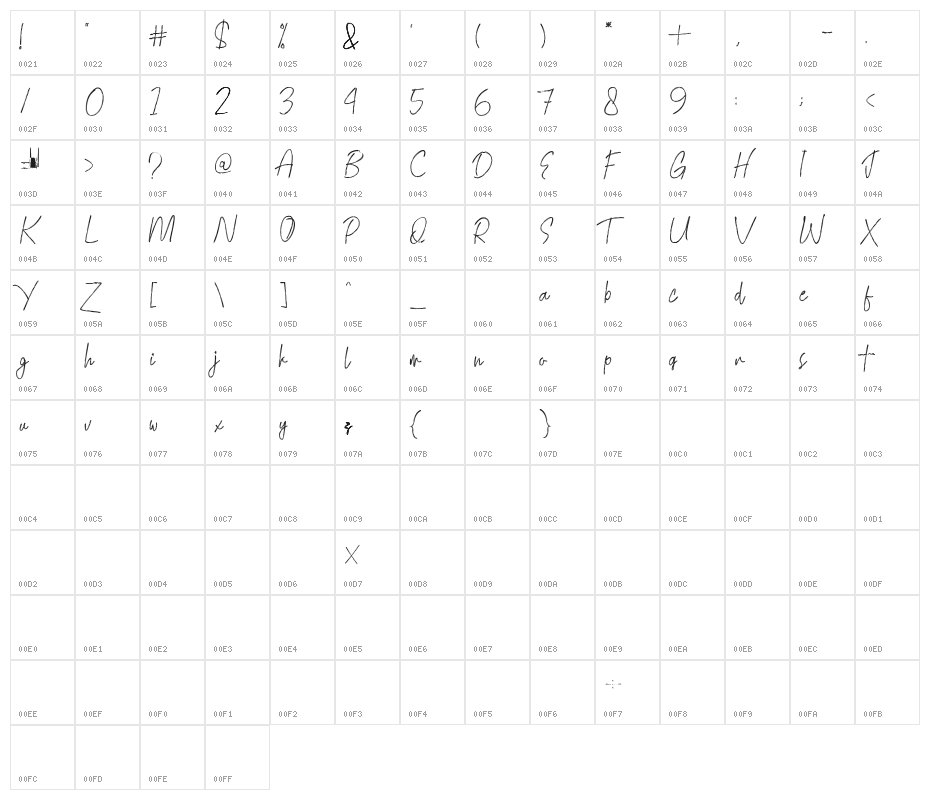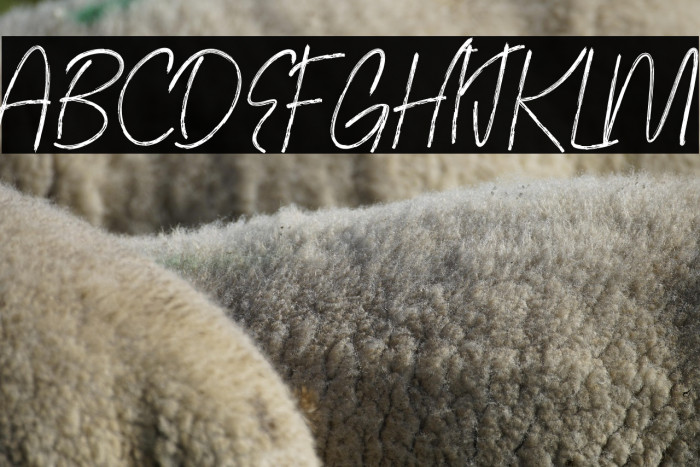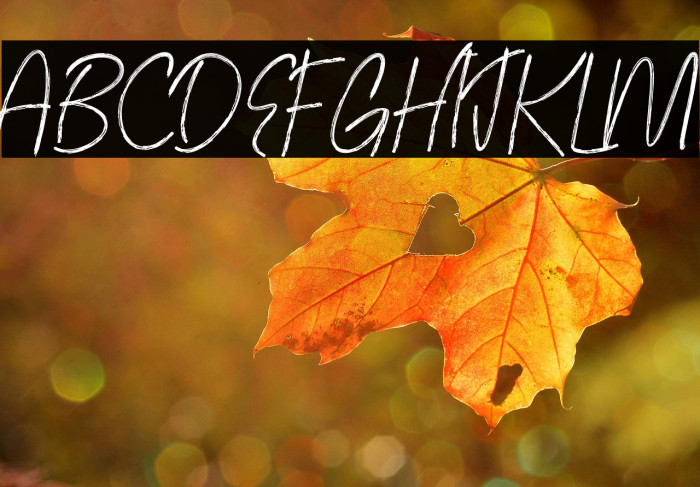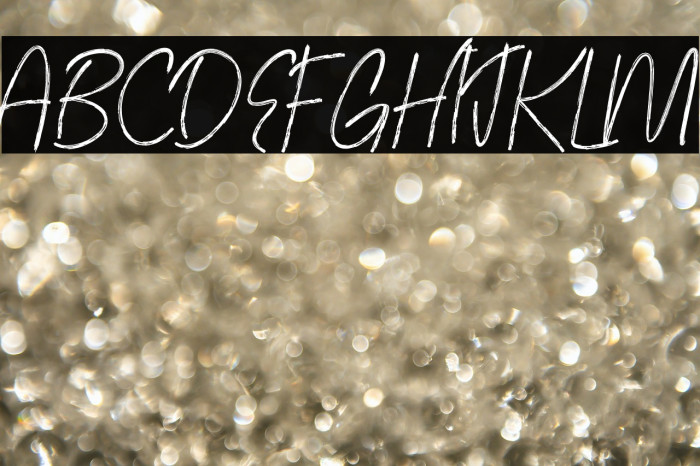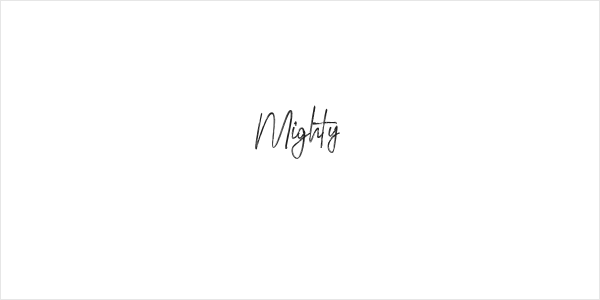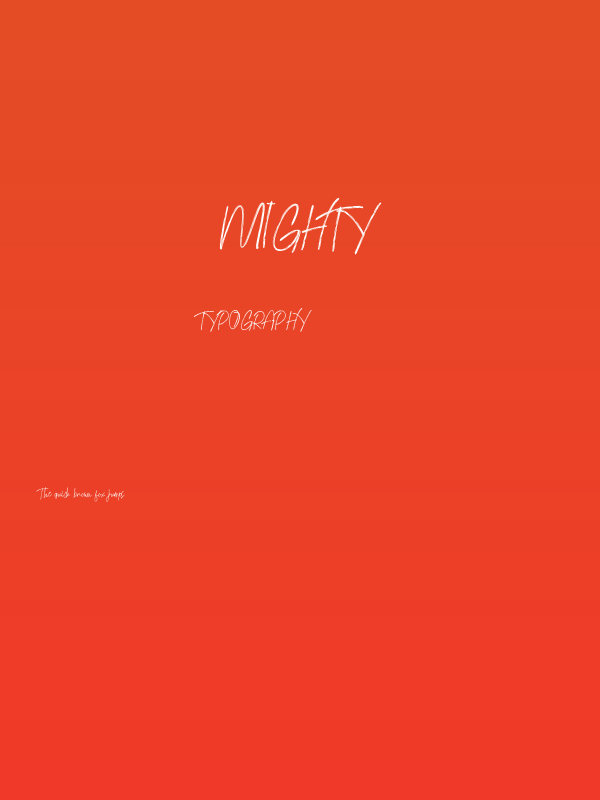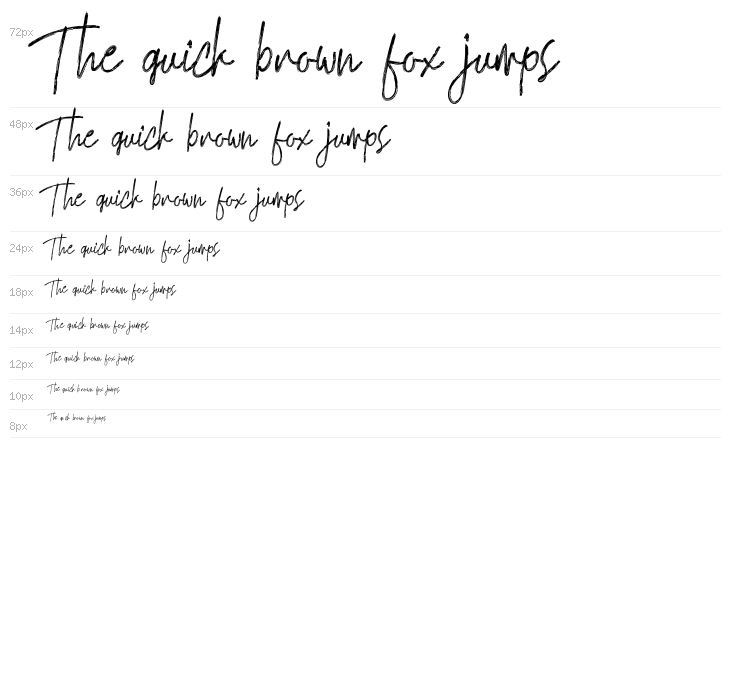
Mighty Font
Mighty Description
This font features a dynamic and expressive handwritten style, characterized by its fluid and slightly irregular strokes. The uppercase letters are tall and slender, with a slight slant that adds a sense of movement and energy. The lowercase letters maintain a consistent flow, enhancing the handwritten aesthetic. Numbers and special characters are crafted with the same lively touch, ensuring a cohesive look across all elements. The overall appearance is casual yet sophisticated, making it suitable for projects that require a personal and approachable feel.
| Overall Style | Casual, Expressive |
| Use Case | Logos, Invitations, Social Media |
| Proposed Projects | Ideal for greeting cards, personal branding, social media graphics, and creative invitations. |